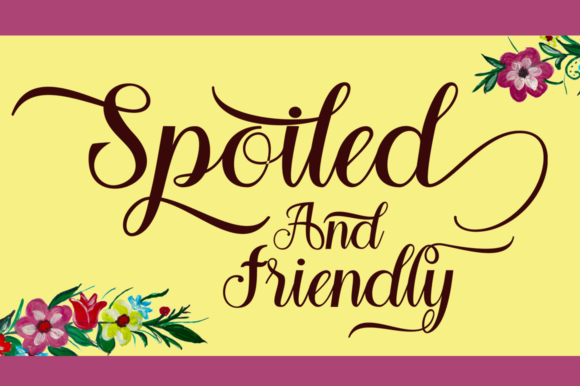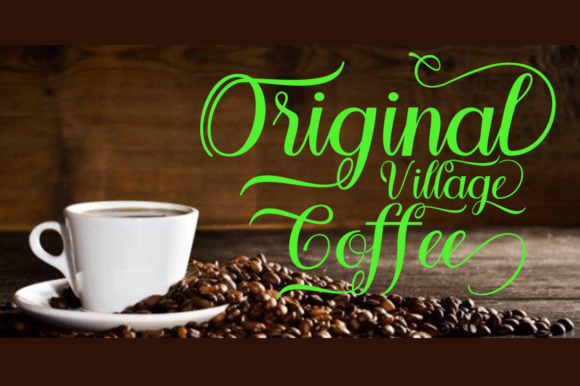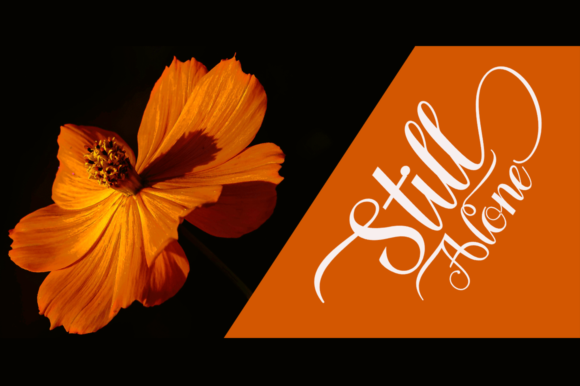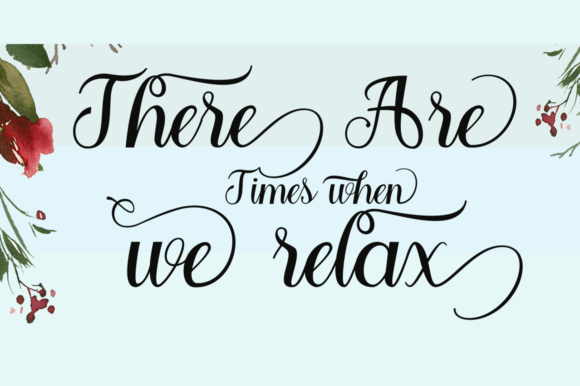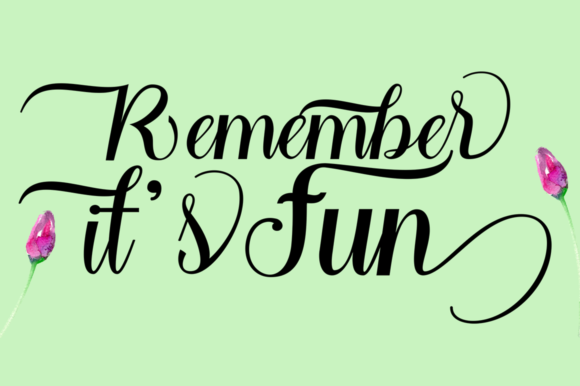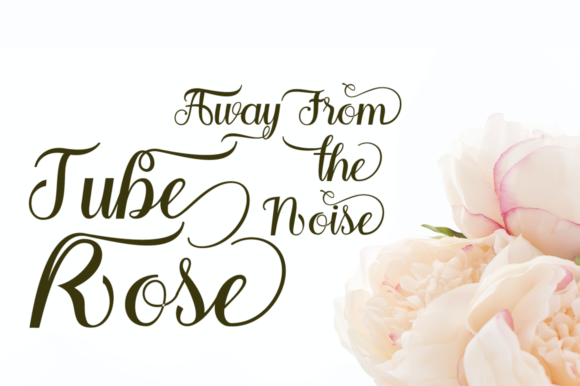
Introduction to Kamaniya Font
Kamaniya is an elegant script font with a contemporary feel and impeccable form.
This font is PUA encoded which means you can access all the glyphs and sweeps easily .
Key Features of Kamaniya Font